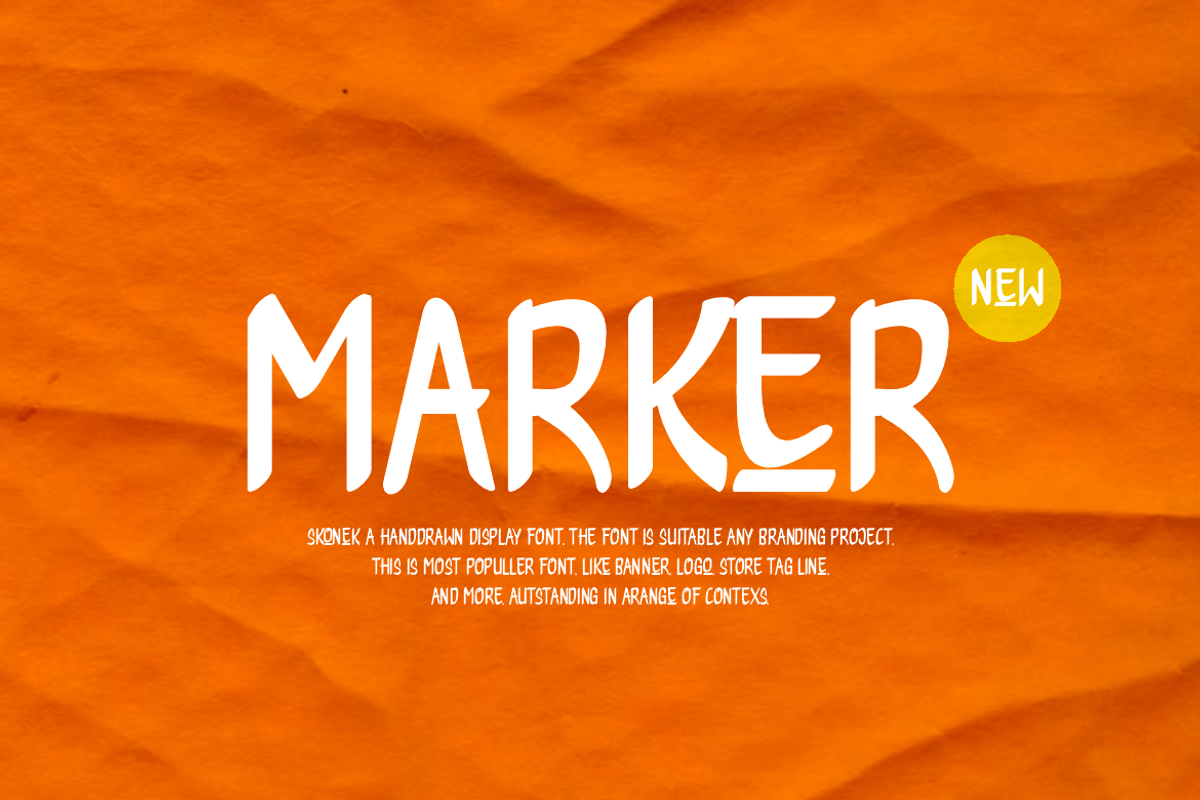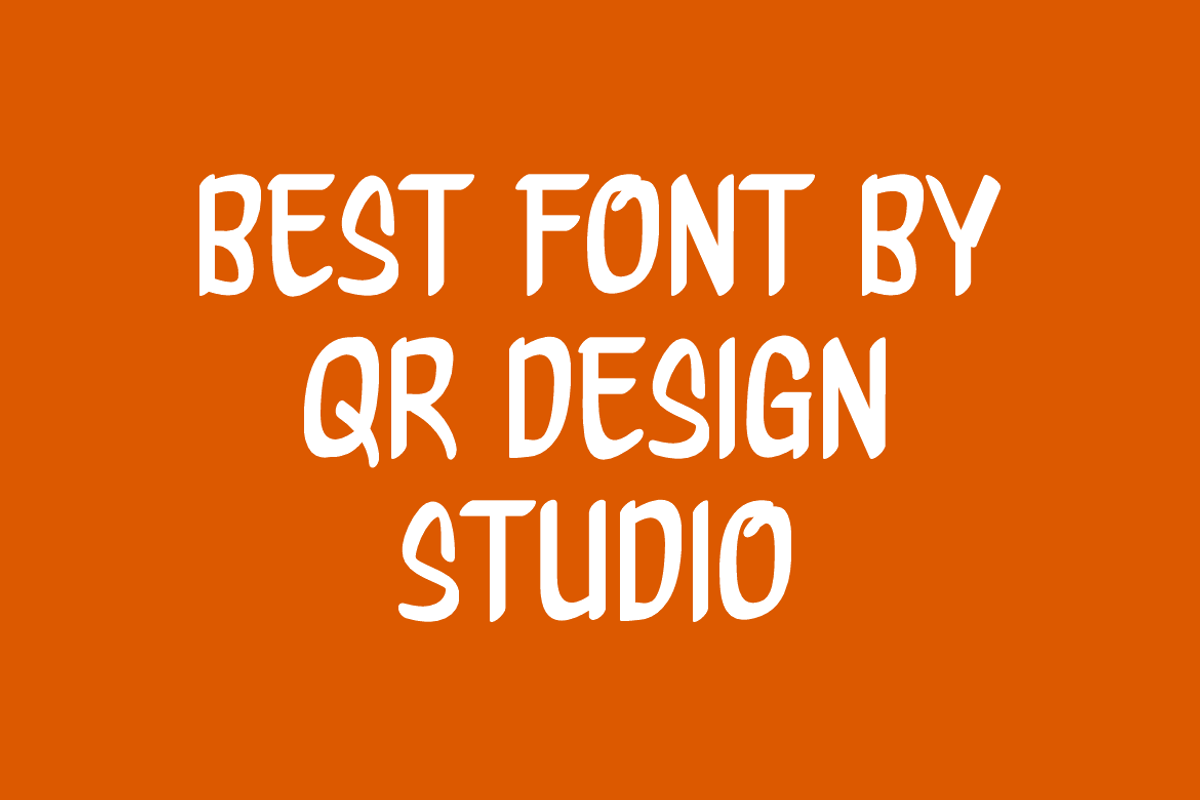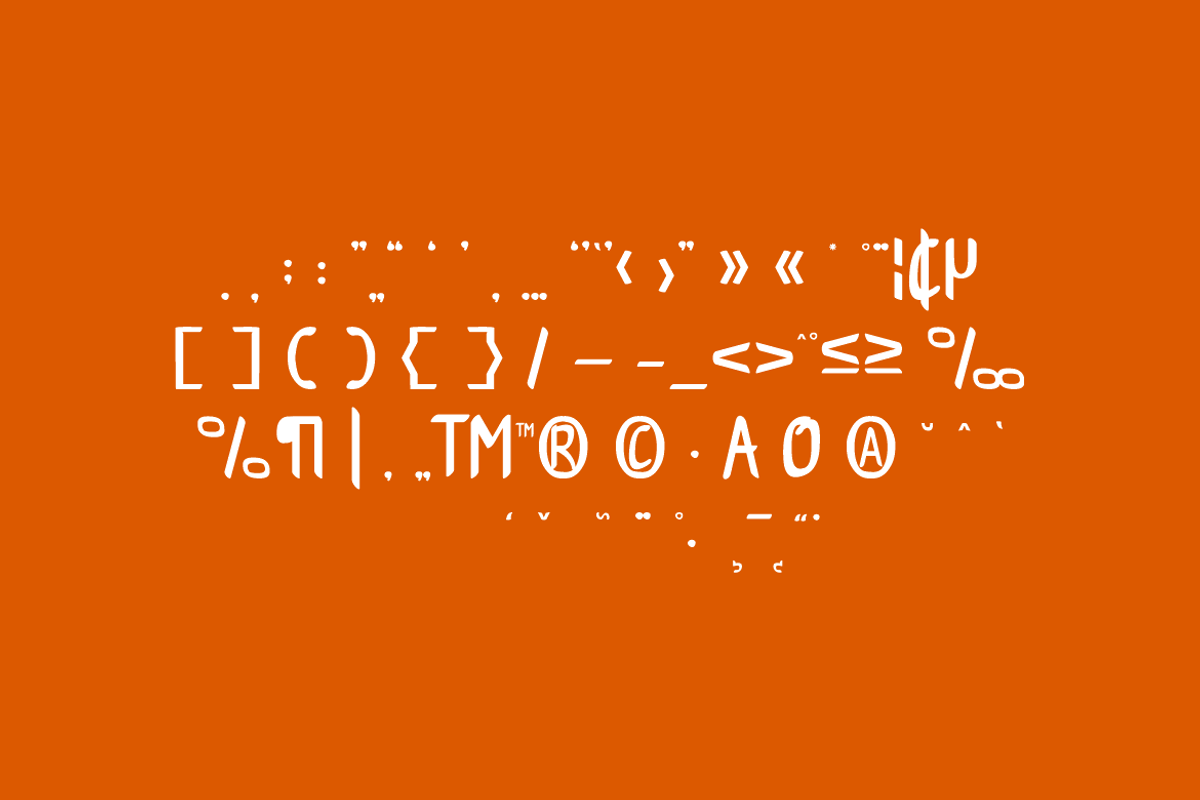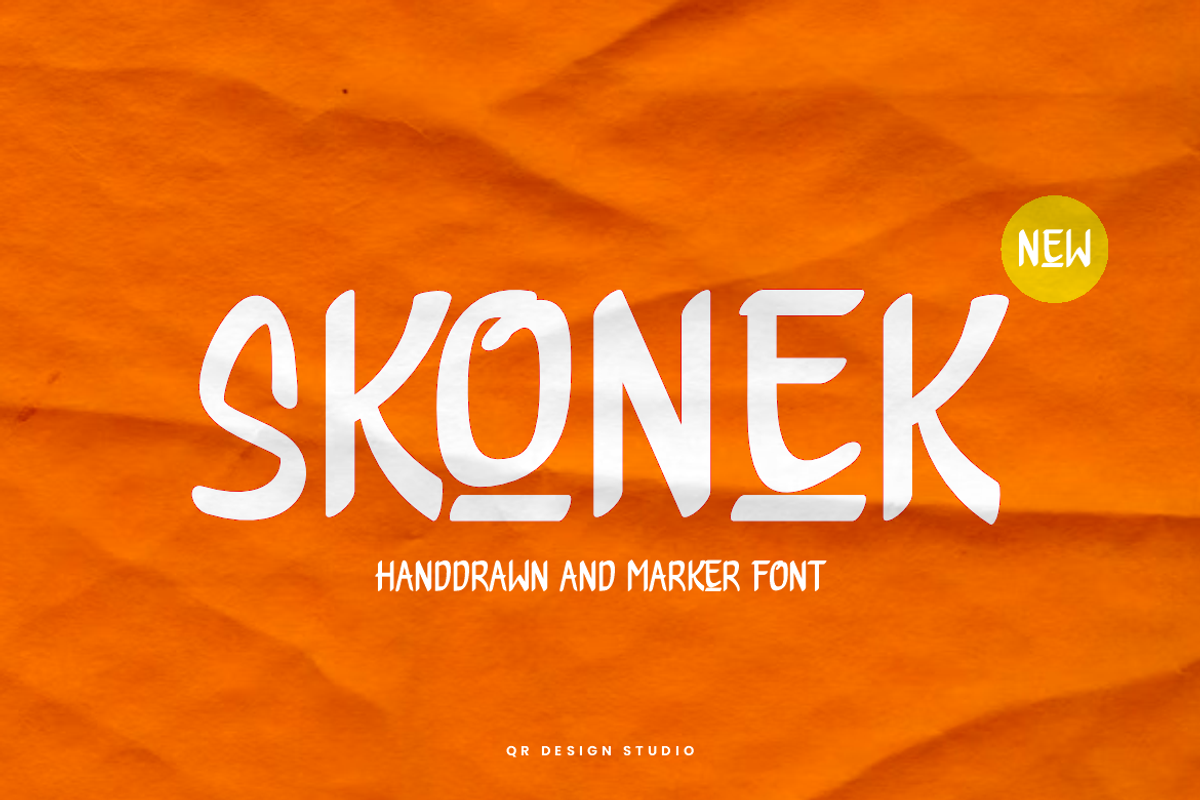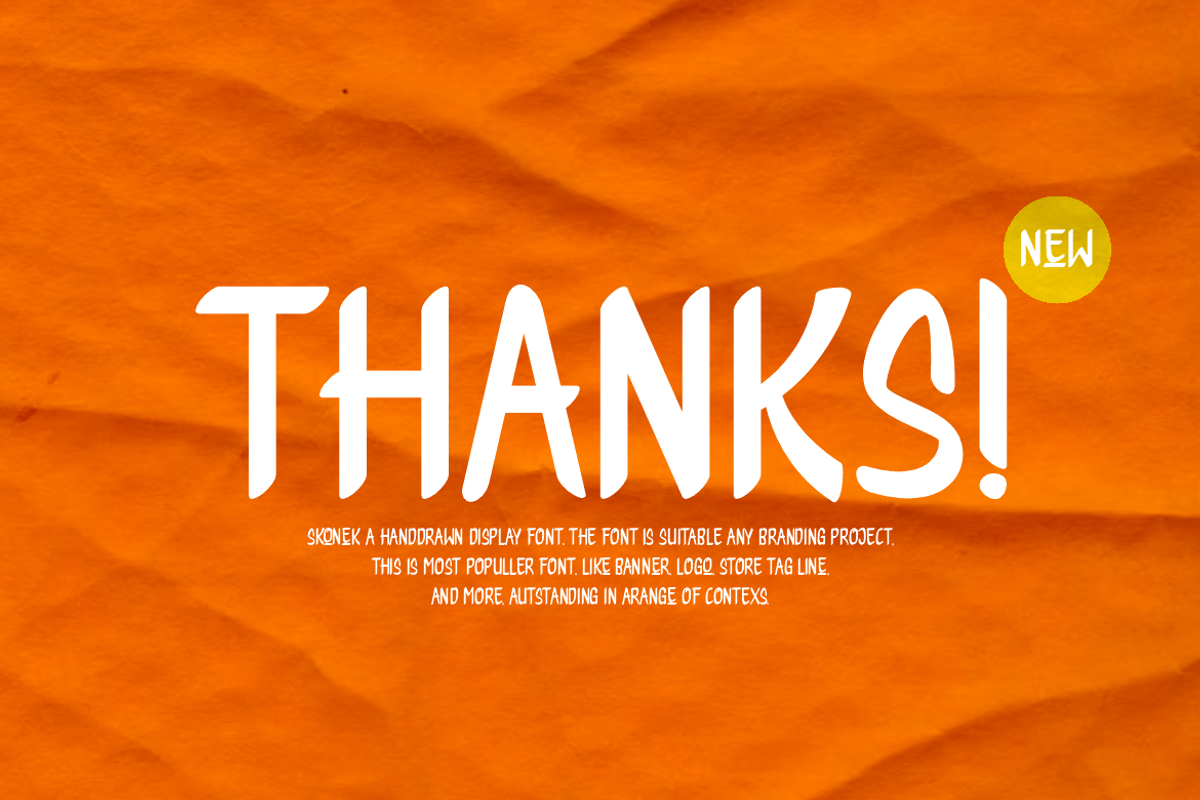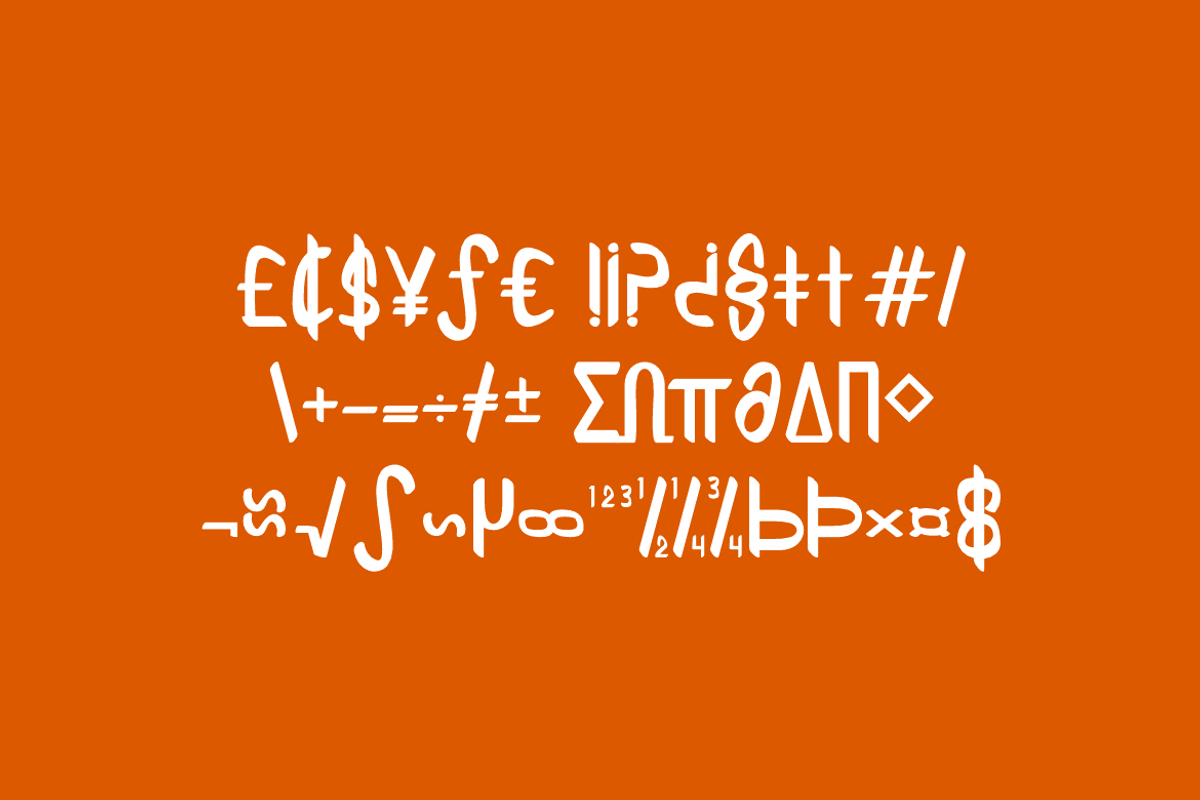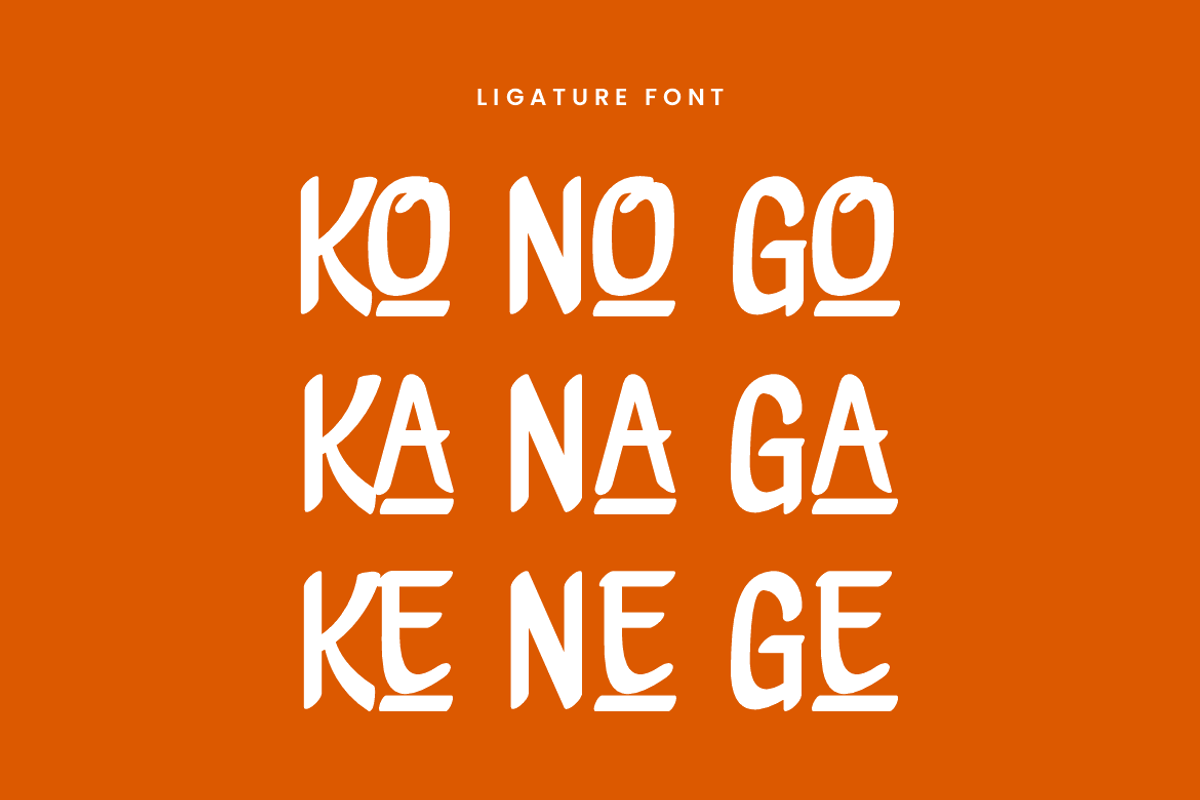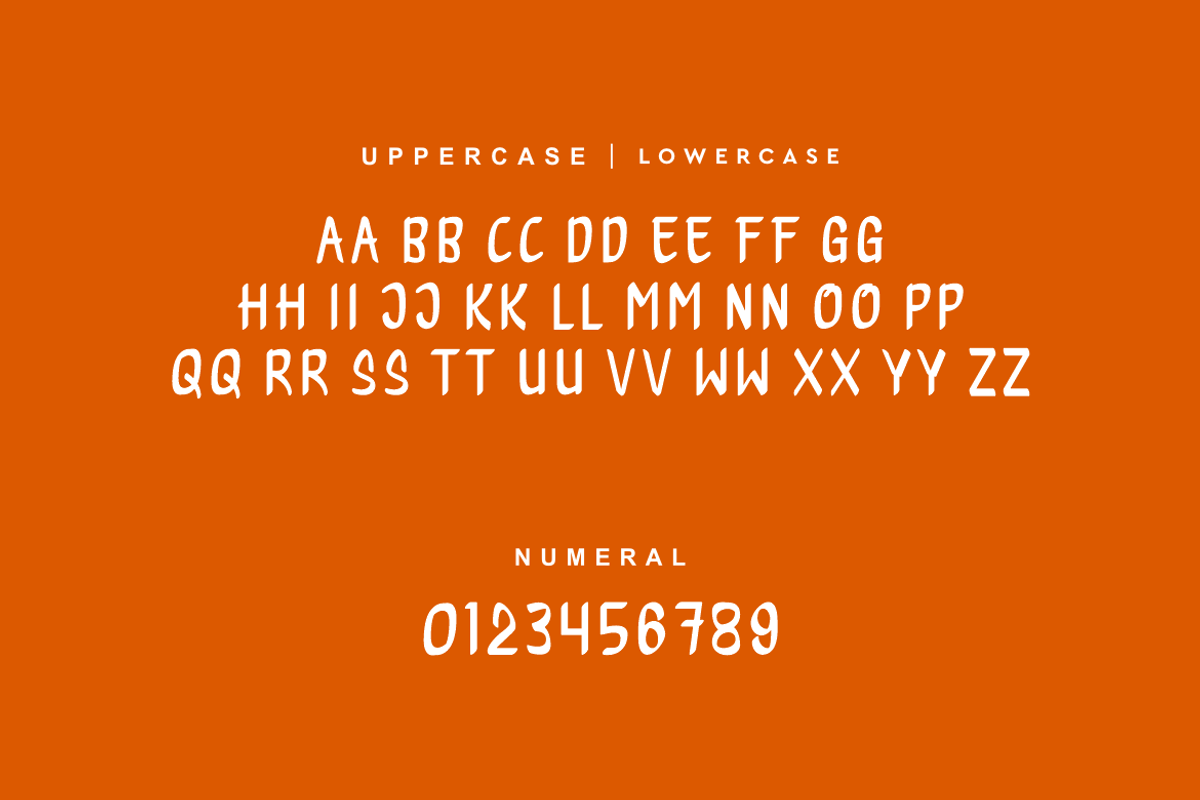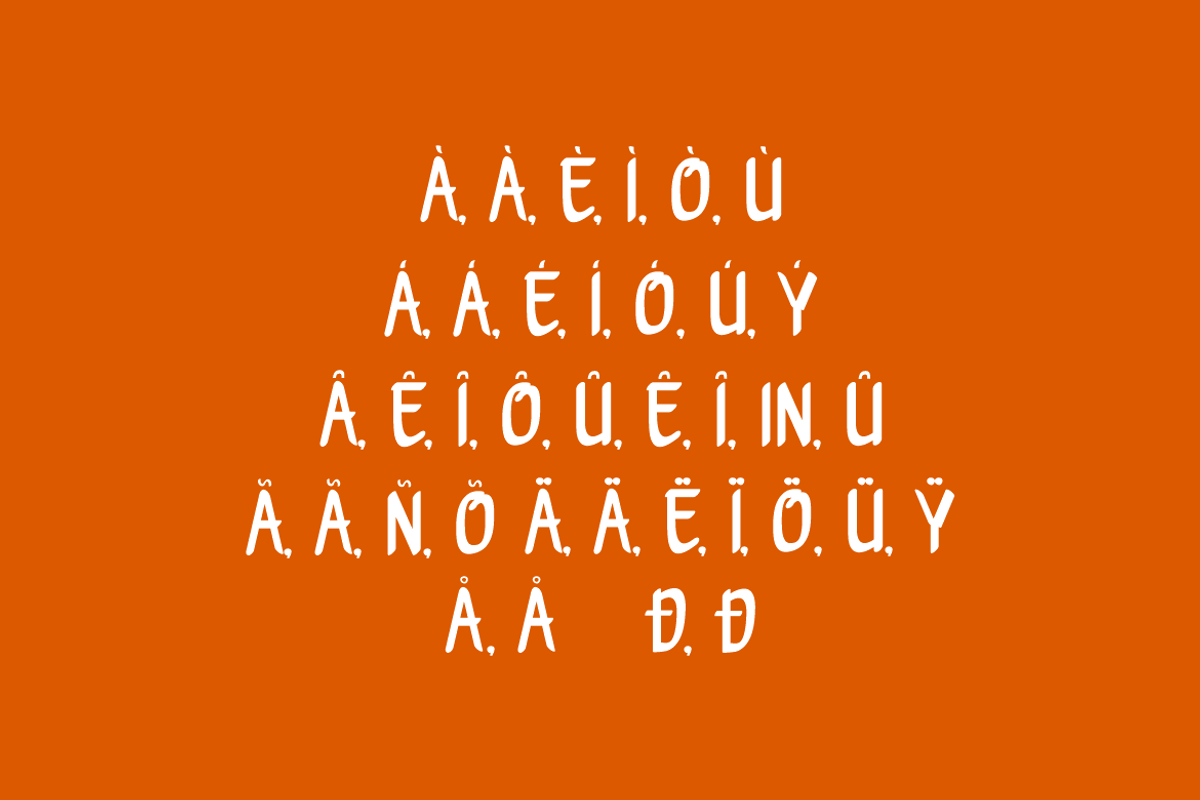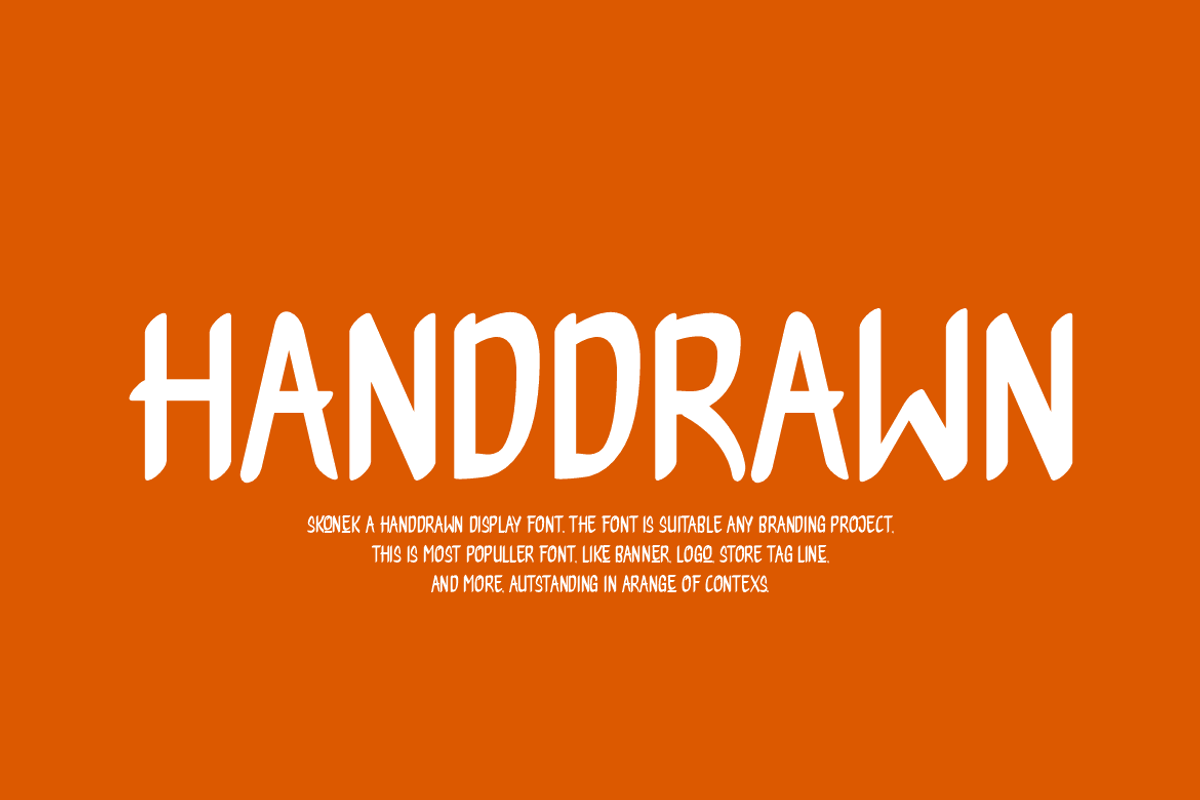
Skonek - Handdrawn Bold Font
Skonek Font is a handdrawn and authentic display font. The font is suitable for any branding project like poster, logo, playful, and many more. Outstanding in a wide range of contexts.